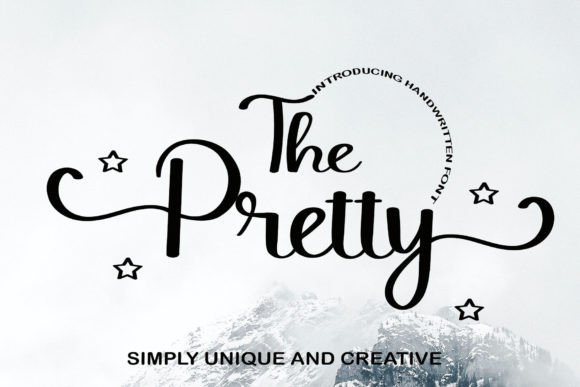
Embark on a typographic adventure with The Pretty Font, a script typeface that captivates with its timeless allure and modern flair. Inspired by the graceful strokes of classic calligraphy, this font exudes elegance and sophistication that will elevate your designs to new heights.
Step into a world of endless creative possibilities with The Pretty Font. Whether you're crafting captivating film scripts, enchanting invitations, or designing breathtaking branding materials, this font will add an undeniable touch of charm and artistry to your work. Its versatile nature allows it to seamlessly adapt to any project, bringing a touch of the extraordinary to every endeavor.
Immerse yourself in the beauty of The Pretty Font and discover a world where words dance with grace and emotions take flight. Experience the transformative power of typography as you witness your creations come to life with unparalleled elegance and captivating appeal.